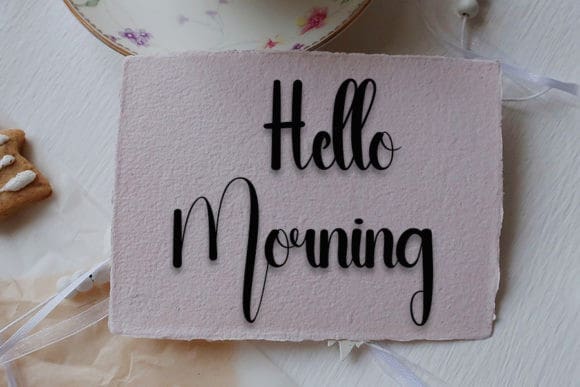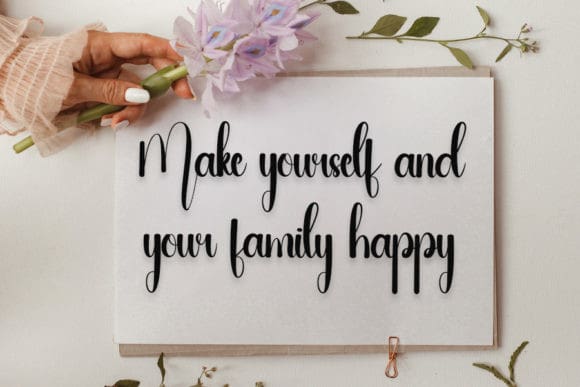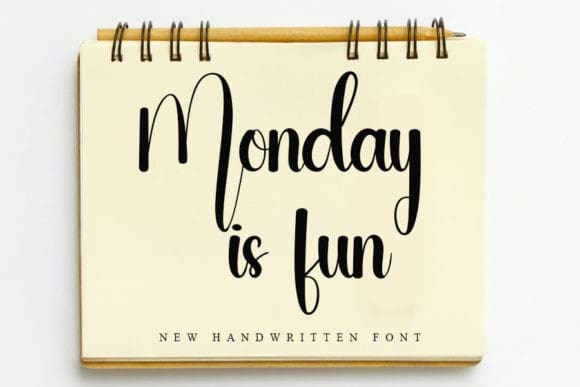
Monday Is Fun Font
Monday Is Fun Font is a sweet, whimsical and flowing script font. Featuring characters that dance along the baseline, this font will add a luxury spark to any design project that you wish to create!